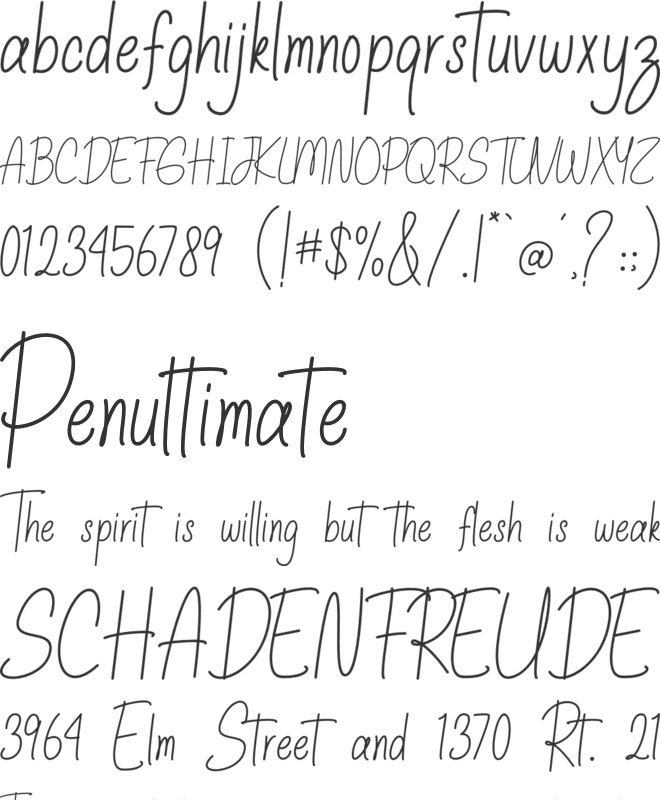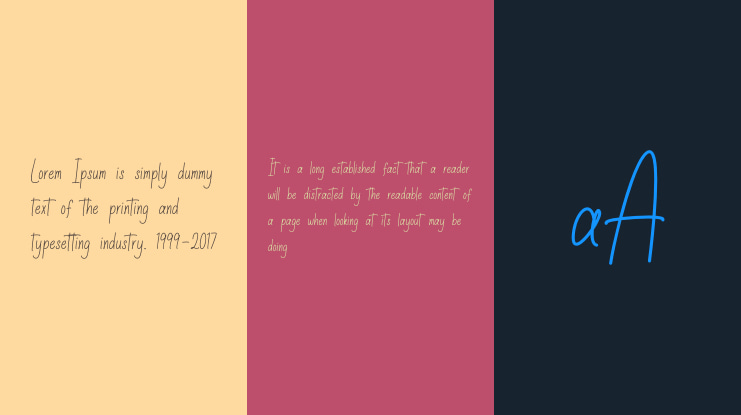
Buttercup Stories Font
Buttercup Stories is a charming handwritten font designed to mimic natural, everyday penmanship on paper. Crafted with the authentic feel of a real ballpoint pen, this font features organic strokes, clean curves, and a cozy.